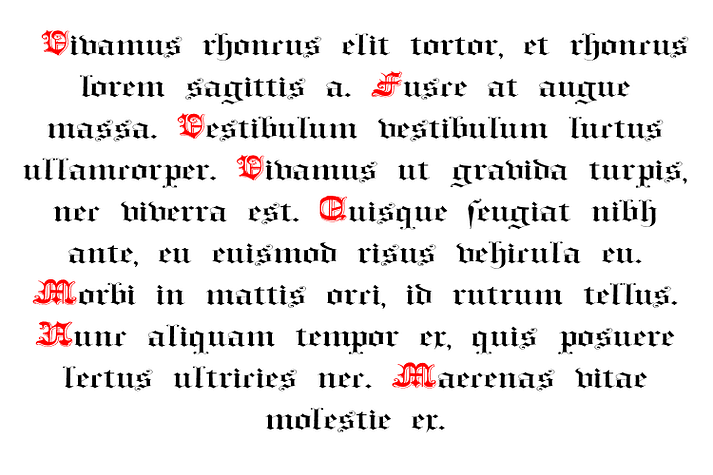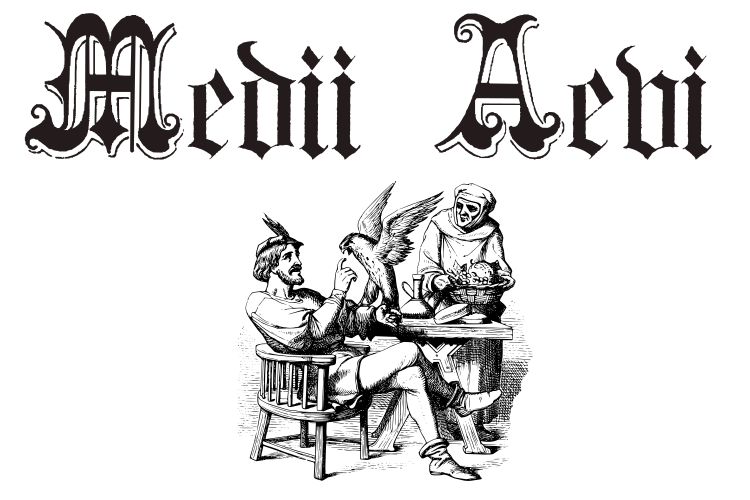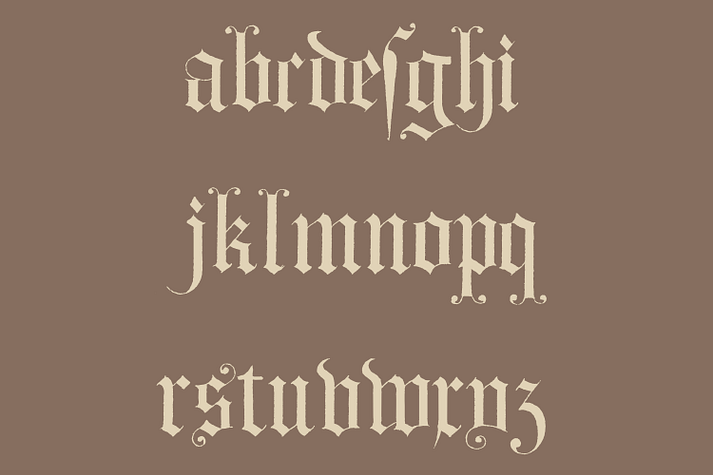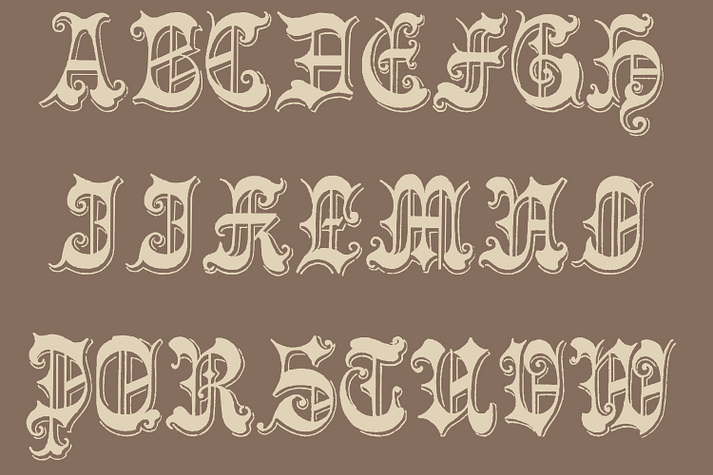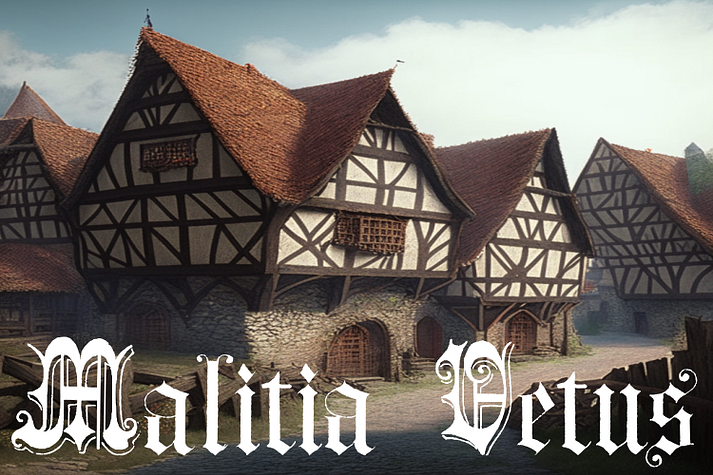
Malitia Vetus
Designed by Paulo W, Malitia Vetus is a blackletter and historical font family published by Intellecta Design.
MalitiaVetus is a decorative blackletter font with influences of Old English, Lombardic and Tuscan styles. Is perfect to create authentic medieval documents